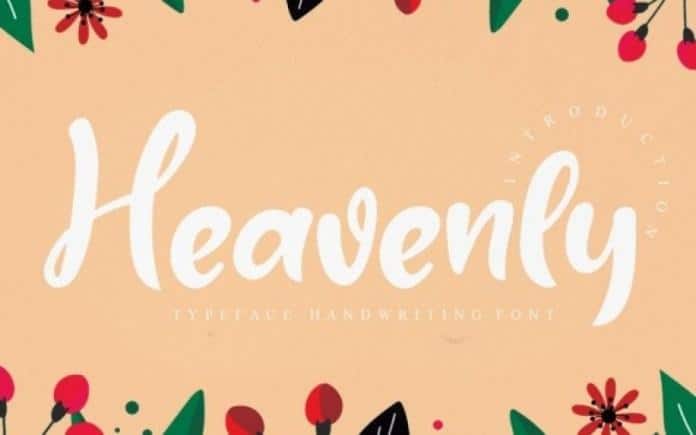
Heavenly Font is a lovely brushed handwritten font. This font is equipped with uppercase, lowercase, numbers, punctuation, and several variations on each character including multi-language. Whether you’re using it for crafting, digital designing, presentations or greeting cards making, it’s perfect!